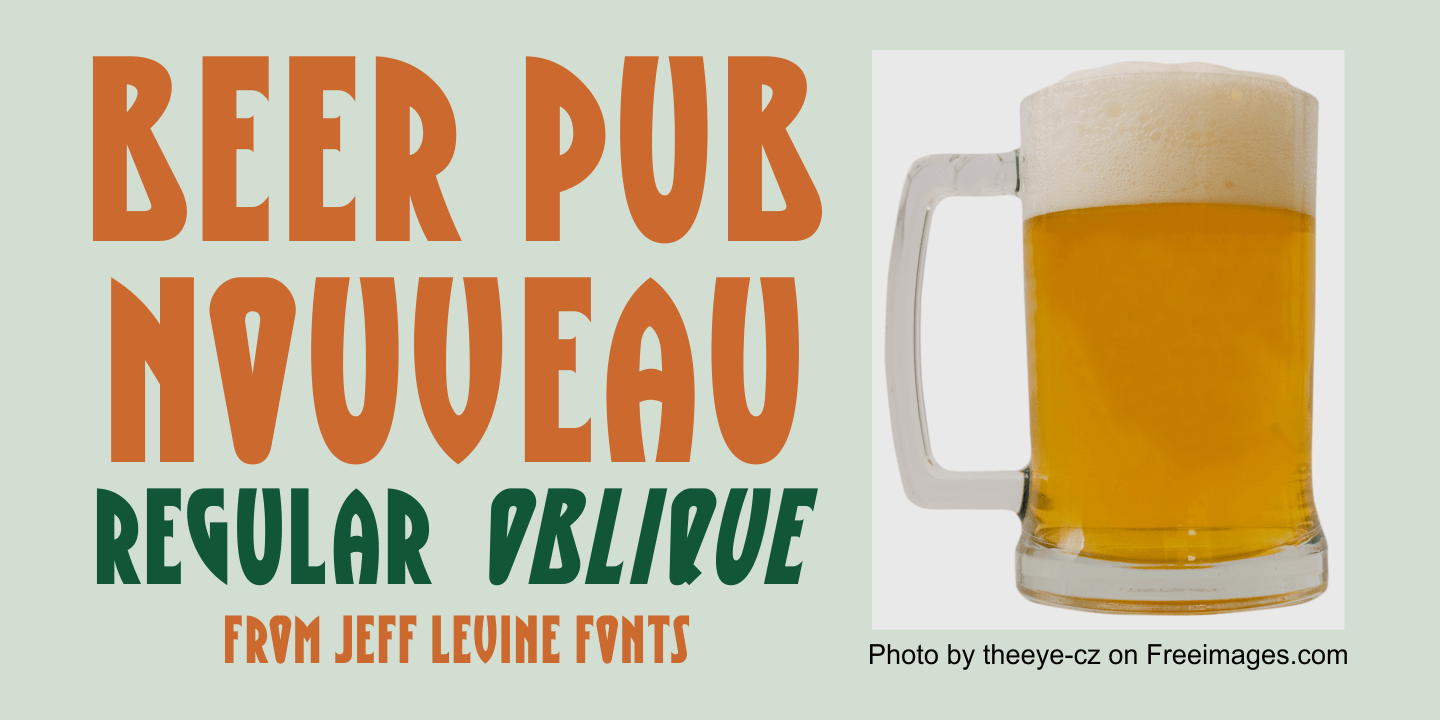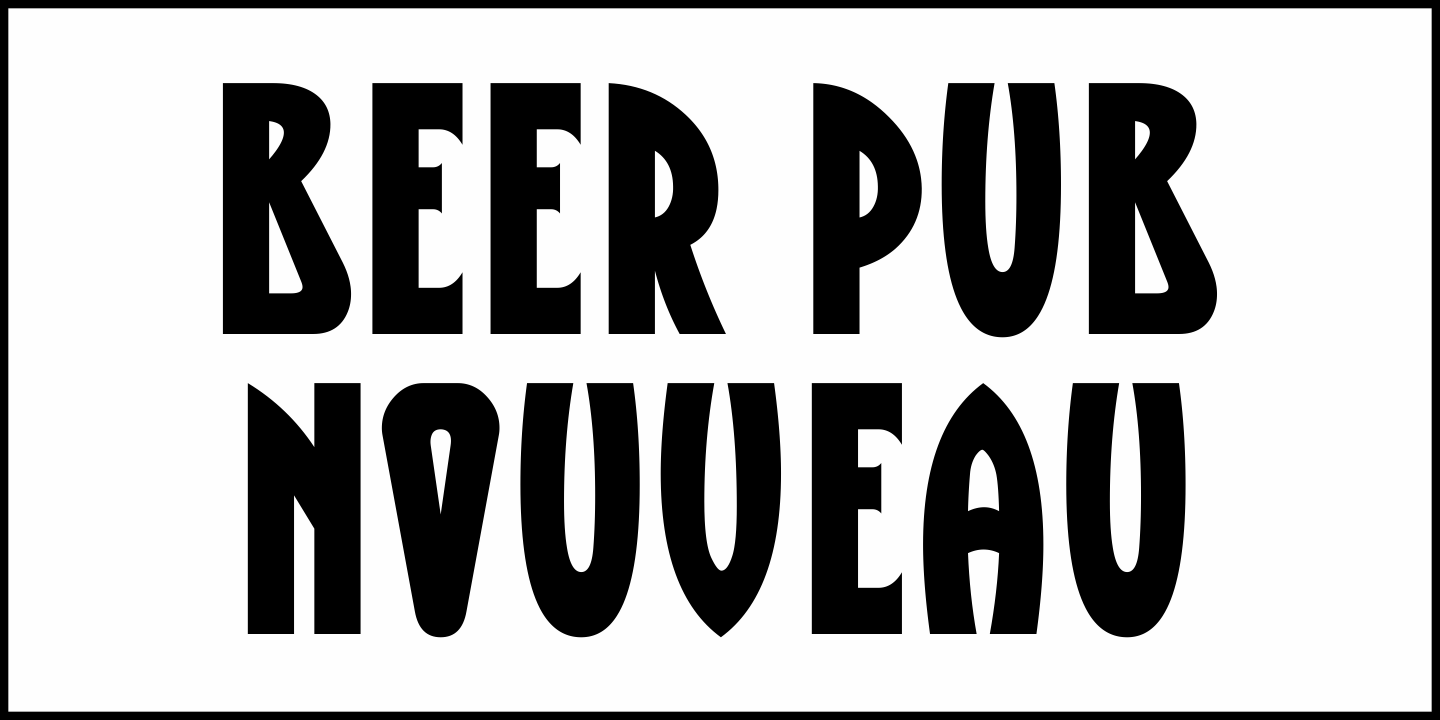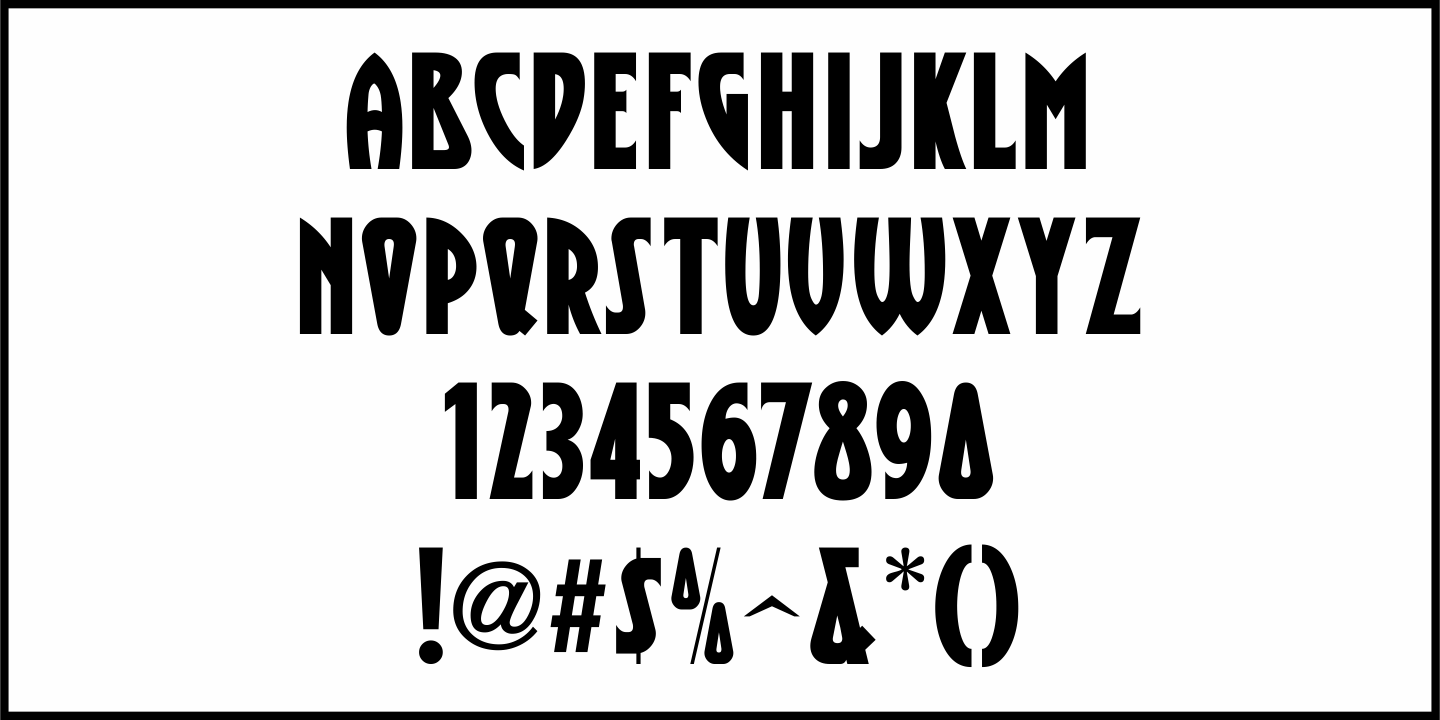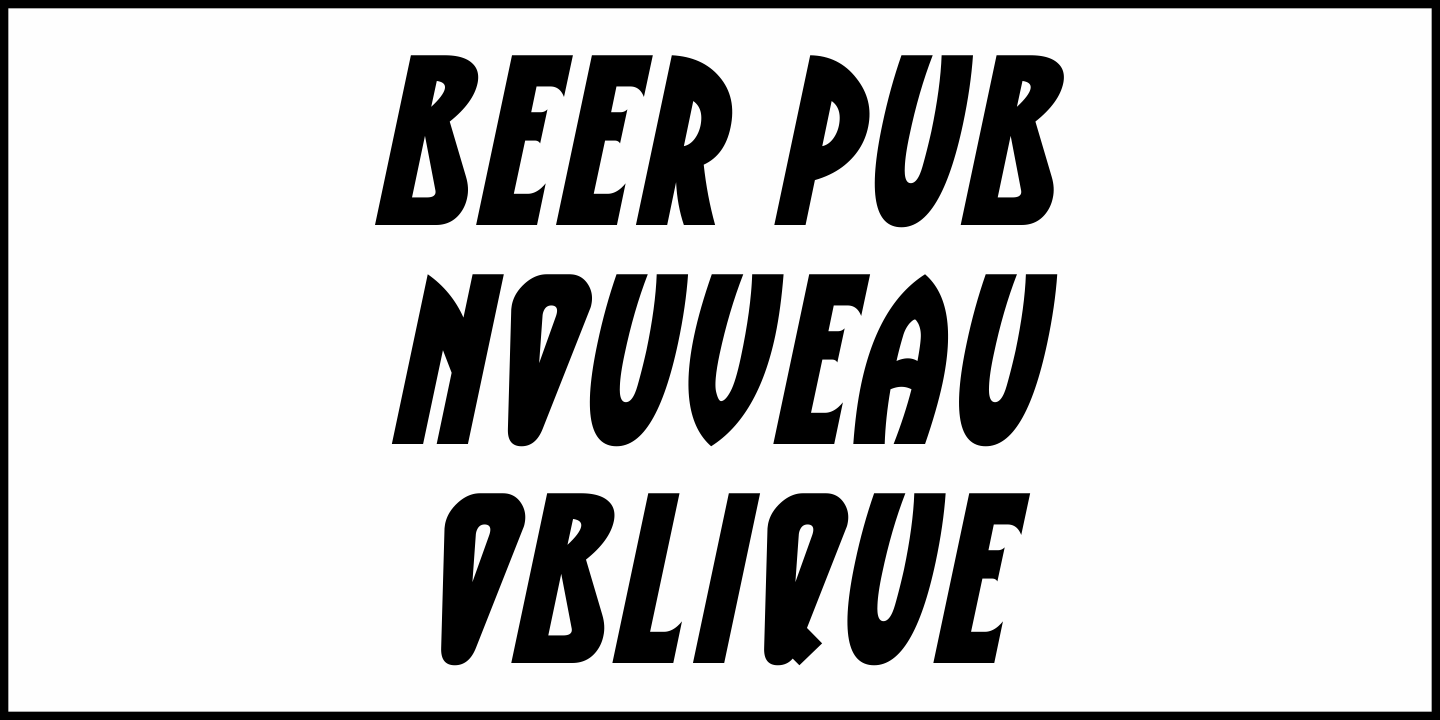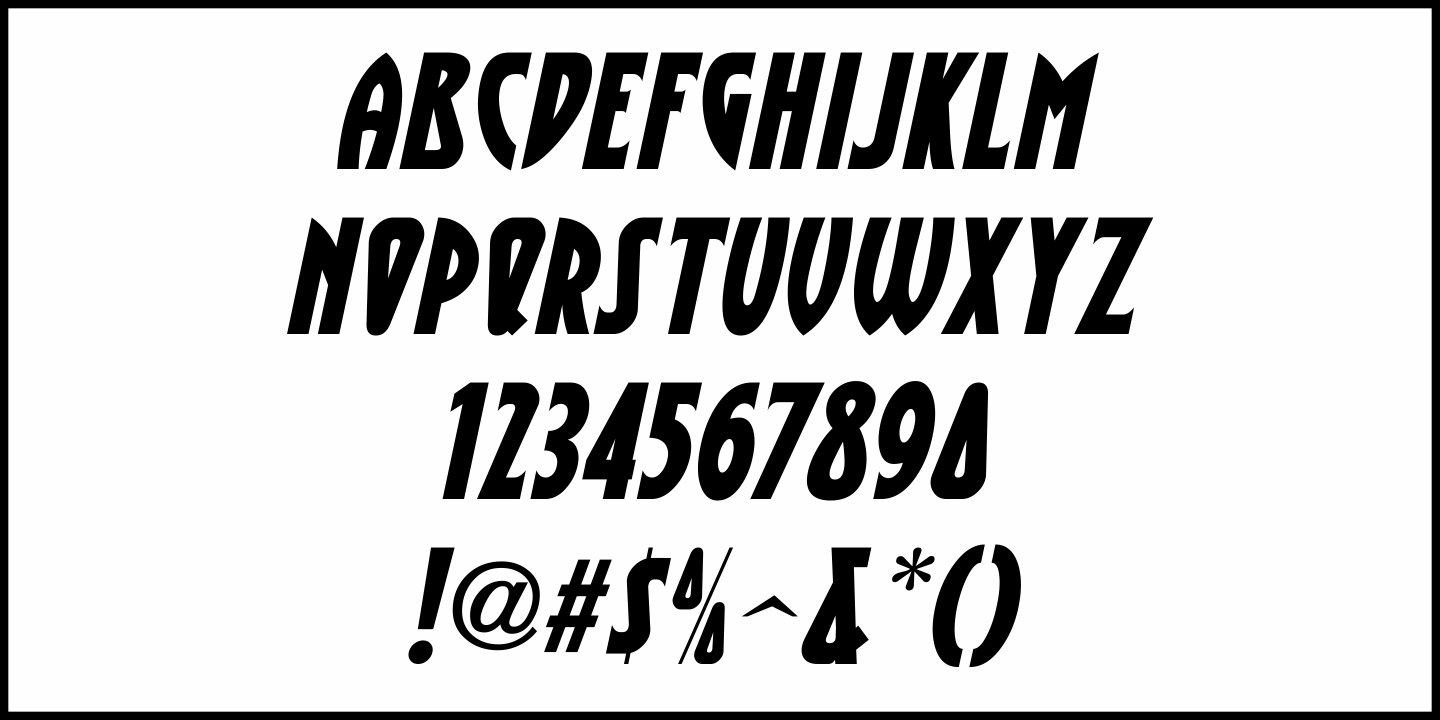
Beer Pub Nouveau
Buy NowA 1911 beer poster for the Italian brew Birra di Borgofranco featured some beautiful Art Nouveau hand lettering in a condensed sans serif style. This inspired the typeface Beer Pub Nouveau JNL, which is available in both regular and oblique versions.